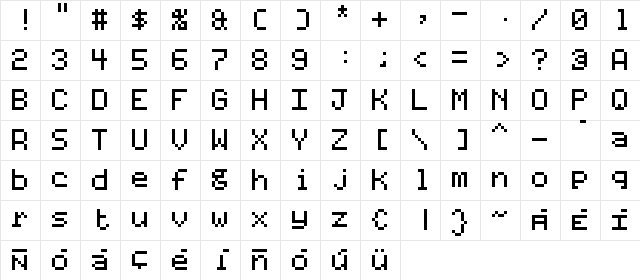
Code 7x5 Regular
Design Context for Code 7x5 Typeface
Code 7x5 brings the precise, column-aligned rhythm of monospaced typography to designs that value technical clarity and systematic order.
A natural fit for code editors, technical documentation, developer-focused branding, and terminal-inspired UI.
Pro Tip: Pair Code 7x5 with a proportional sans for UI contexts where code-style labels and regular body copy need to coexist.